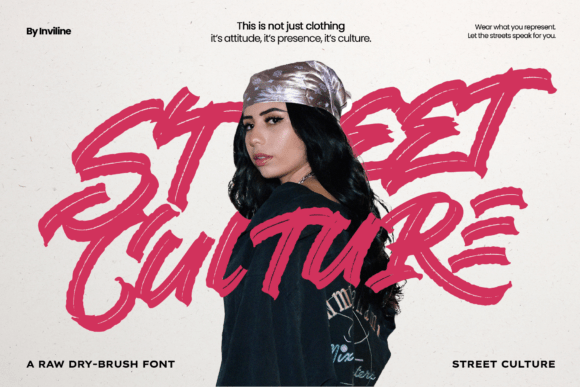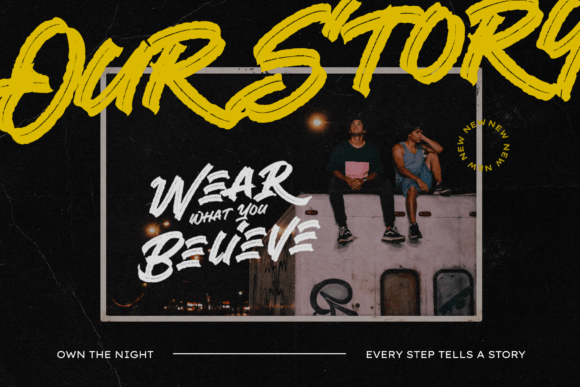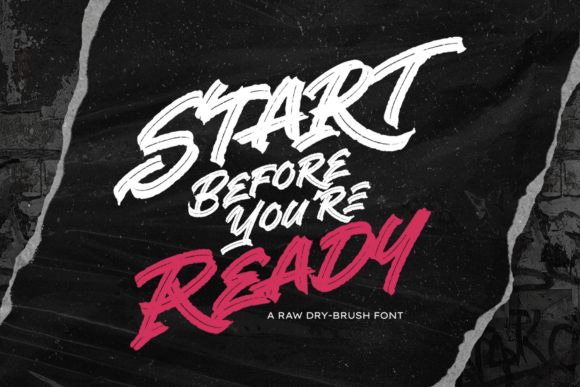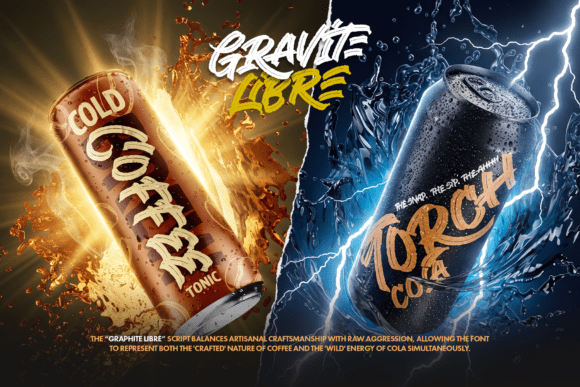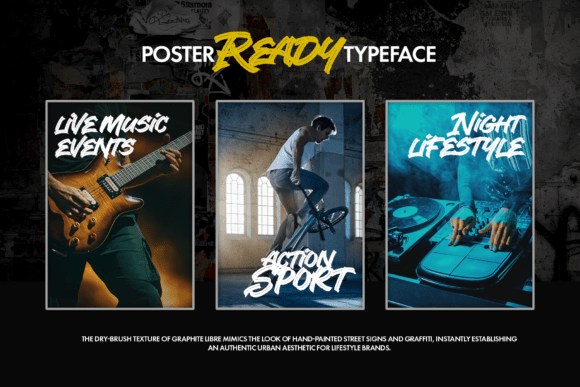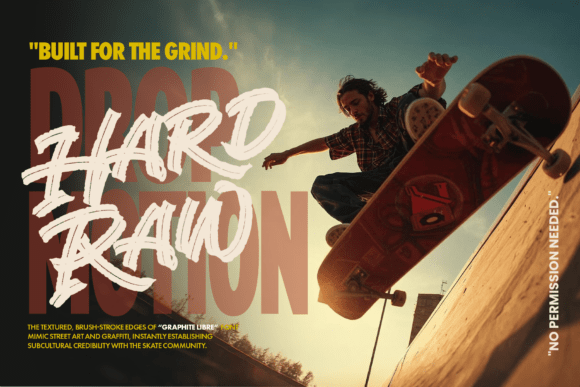
Unleash a “Poster-Ready Force” with Gravité Libre Font
In the realm of typography, few fonts manage to capture the essence of raw energy and unbridled creativity. Gravité Libre, an aggressive uppercase display font, is one such typeface that embodies the spirit of urban grit and human-made intensity. Designed to evoke the feel of a hurried artist’s brush across concrete, Gravité Libre is the perfect choice for designers and crafters looking to add a touch of edginess to their projects.
The Raw, Uncompromising Aesthetic of Gravité Libre
Gravité Libre is defined by its uncompromising “human-made grit.” This raw dry-brush typeface features heavy, energetic strokes that exude a sense of urgency and dynamism. The distressed texture of the font perfectly mimics the look and feel of a brush scrawling across concrete, giving it an organic, hand-crafted feel that’s hard to replicate with traditional typography.
Perfect for Urban Streetwear Branding and Beyond
Given its aggressive, high-energy aesthetic, Gravité Libre is the premier choice for a variety of design applications. Urban streetwear branding, underground music festival posters, extreme sports logos, and cinematic “grunge-revival” social media headers are just a few examples of where this font can make a lasting impact.
Urban Streetwear Branding
Gravité Libre’s bold, attention-grabbing design makes it an ideal choice for urban streetwear branding. Whether you’re creating a logo for a clothing line, sneaker brand, or accessories label, this font is sure to help your brand stand out in a crowded market.
Underground Music Festival Posters
The font’s raw, energetic vibe is also well-suited for underground music festival posters. Whether you’re promoting a hip-hop, electronic, or rock event, Gravité Libre’s distressed texture and heavy strokes will help create a poster that’s both eye-catching and memorable.
Extreme Sports Logos
For extreme sports brands, Gravité Libre offers a font that’s both bold and fearless. From skateboarding and BMX to motocross and parkour, this font is perfect for creating logos that convey a sense of speed, agility, and daring.
Cinematic “Grunge-Revival” Social Media Headers
Finally, Gravité Libre’s grungy aesthetic makes it an excellent choice for cinematic “grunge-revival” social media headers. Whether you’re creating a header for a film or TV show, or simply want to add a touch of grit to your social media profiles, this font is sure to deliver.
Key Features of Gravité Libre Font
- Aggressive uppercase display font: Designed to grab attention and make a statement.
- Raw dry-brush texture: Features heavy, energetic strokes and a distressed texture that mimics a hurried artist’s brush across concrete.
- Uncompromising “human-made grit”: Embodies the spirit of urban grit and human-made intensity.
- Perfect for bold designs: Ideal for urban streetwear branding, underground music festival posters, extreme sports logos, and cinematic “grunge-revival” social media headers.
| Font Name | Gravité Libre Font |
| Author | Inviline |
Gravité Libre is a force to be reckoned with in the world of typography. Its raw, uncompromising aesthetic makes it the perfect choice for designers and crafters looking to add a touch of edginess to their projects. With its bold, attention-grabbing design and distressed texture, Gravité Libre is sure to unleash a “poster-ready force” that’s both memorable and impactful.